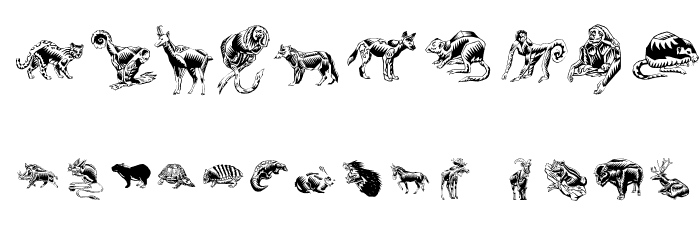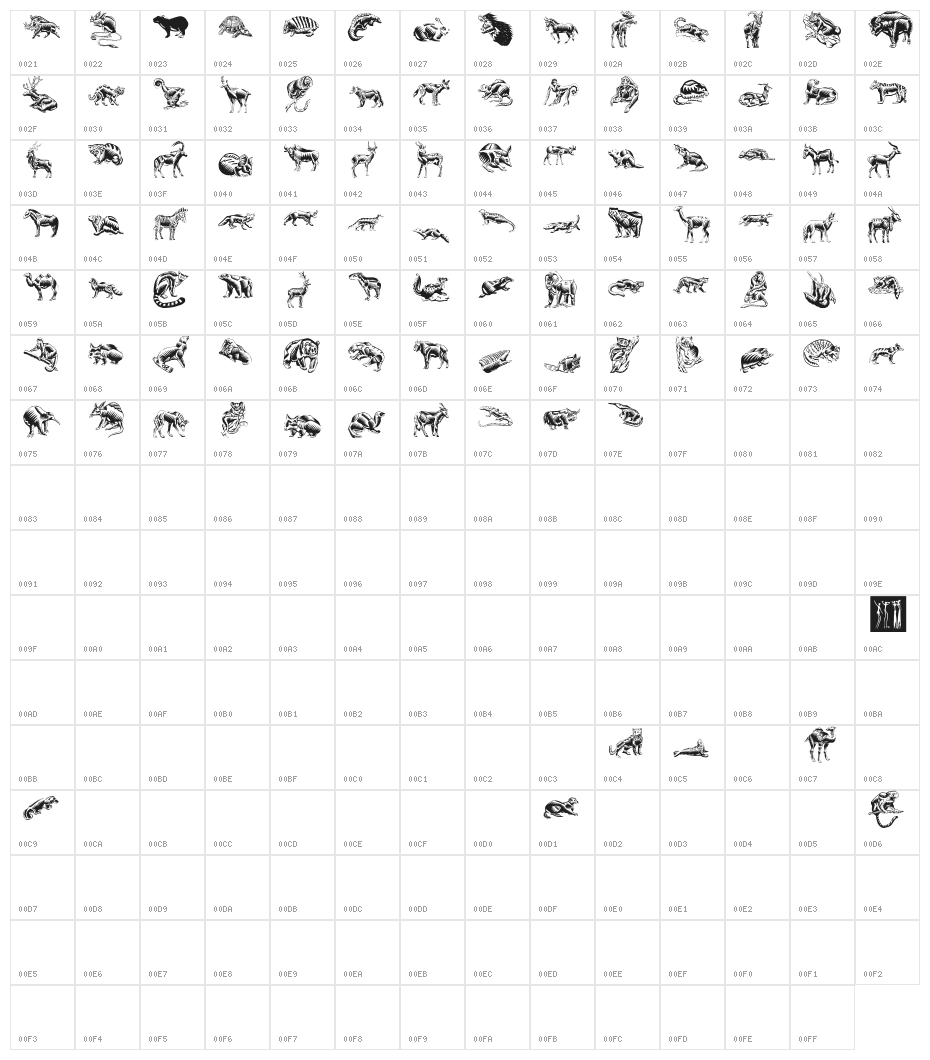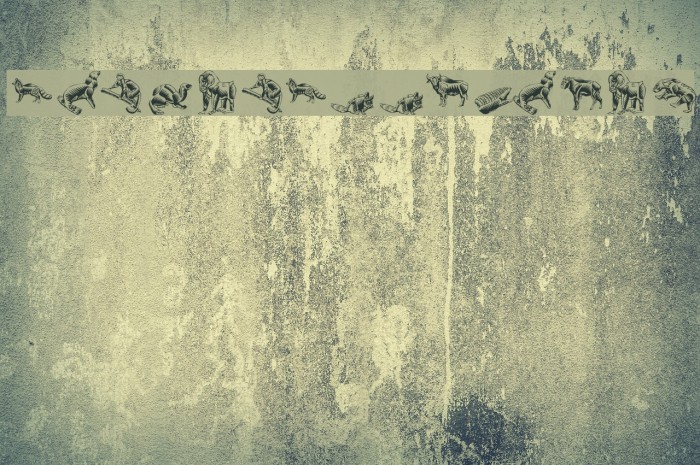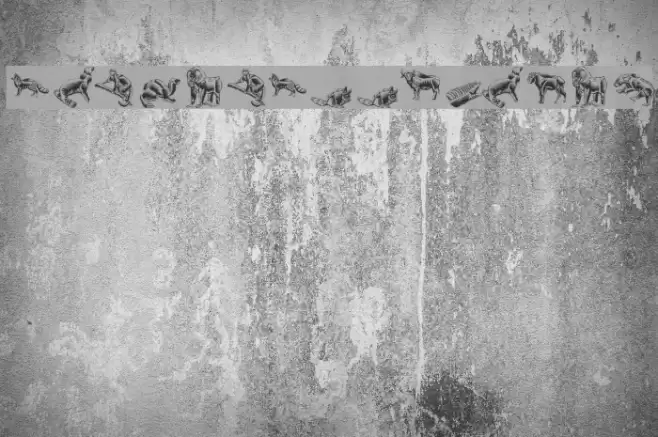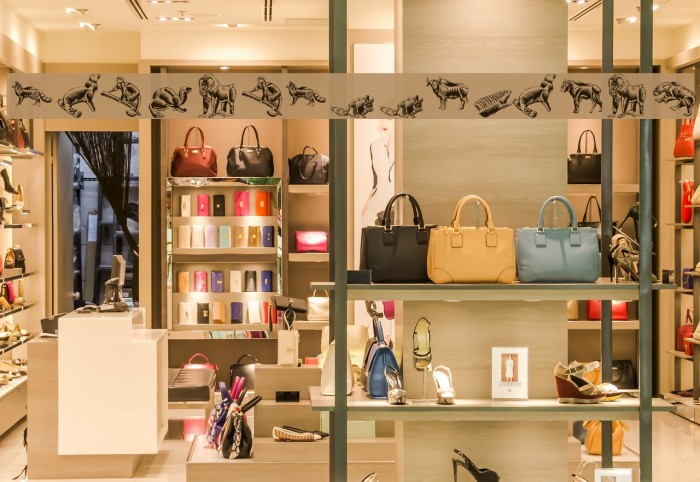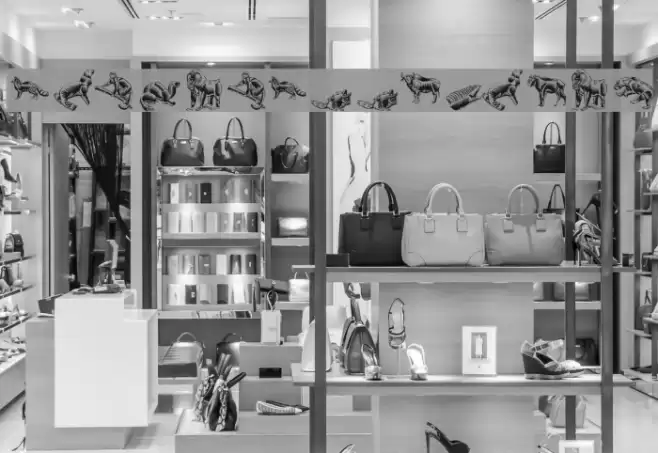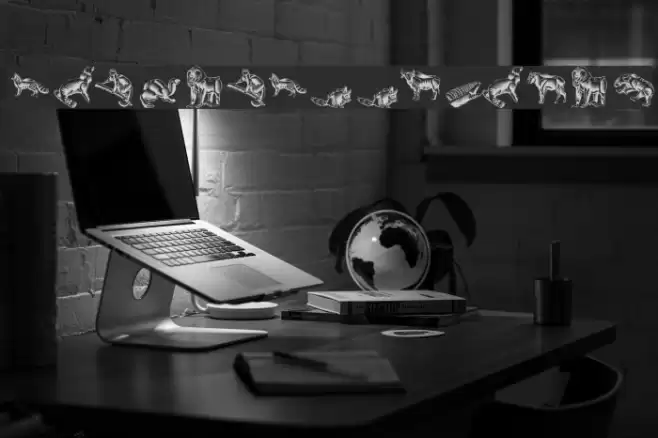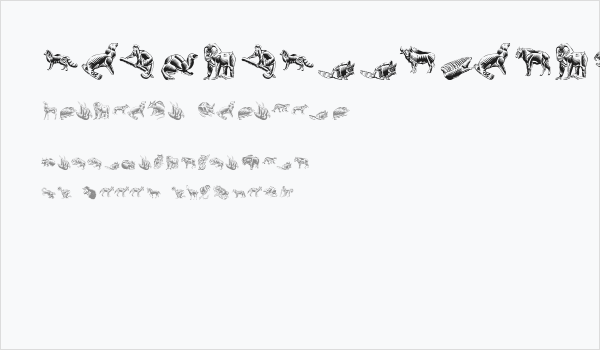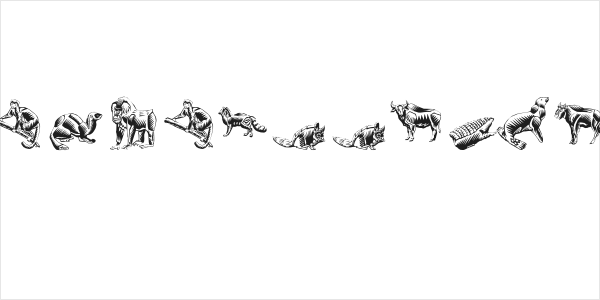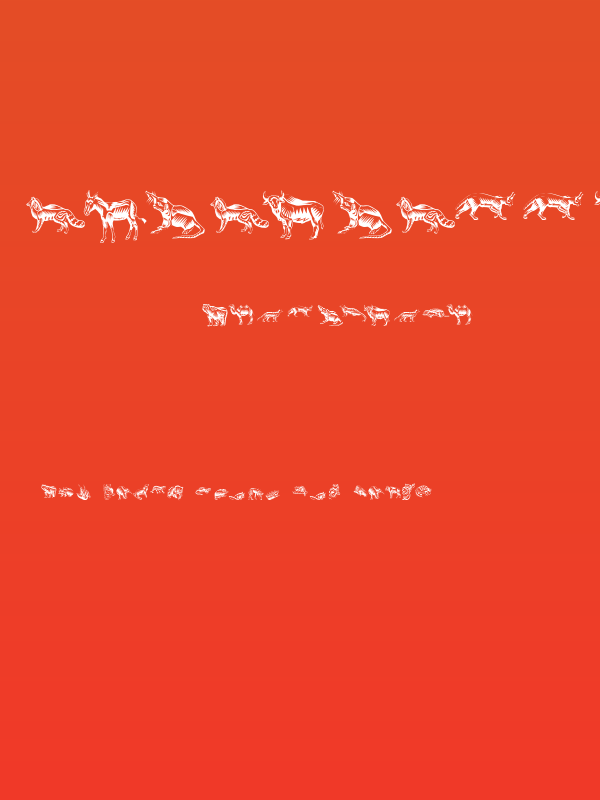
ZigzagZooAnimal Font
ZigzagZooAnimal Description
A decorative display set featuring stylized animal illustrations, each rendered with bold, zigzag and stripe-like shading, giving a dynamic and textured appearance. The glyphs are pictorial rather than typographic, with high contrast and intricate detail, making each animal distinct and visually engaging.
Overall StyleDecorative, Illustrative, Playful
Use CaseLogos, Posters, Decorative elements, Educational materials
Proposed ProjectsChildrenÒ€ℒs books, educational posters, wildlife branding, themed invitations, decorative packaging.